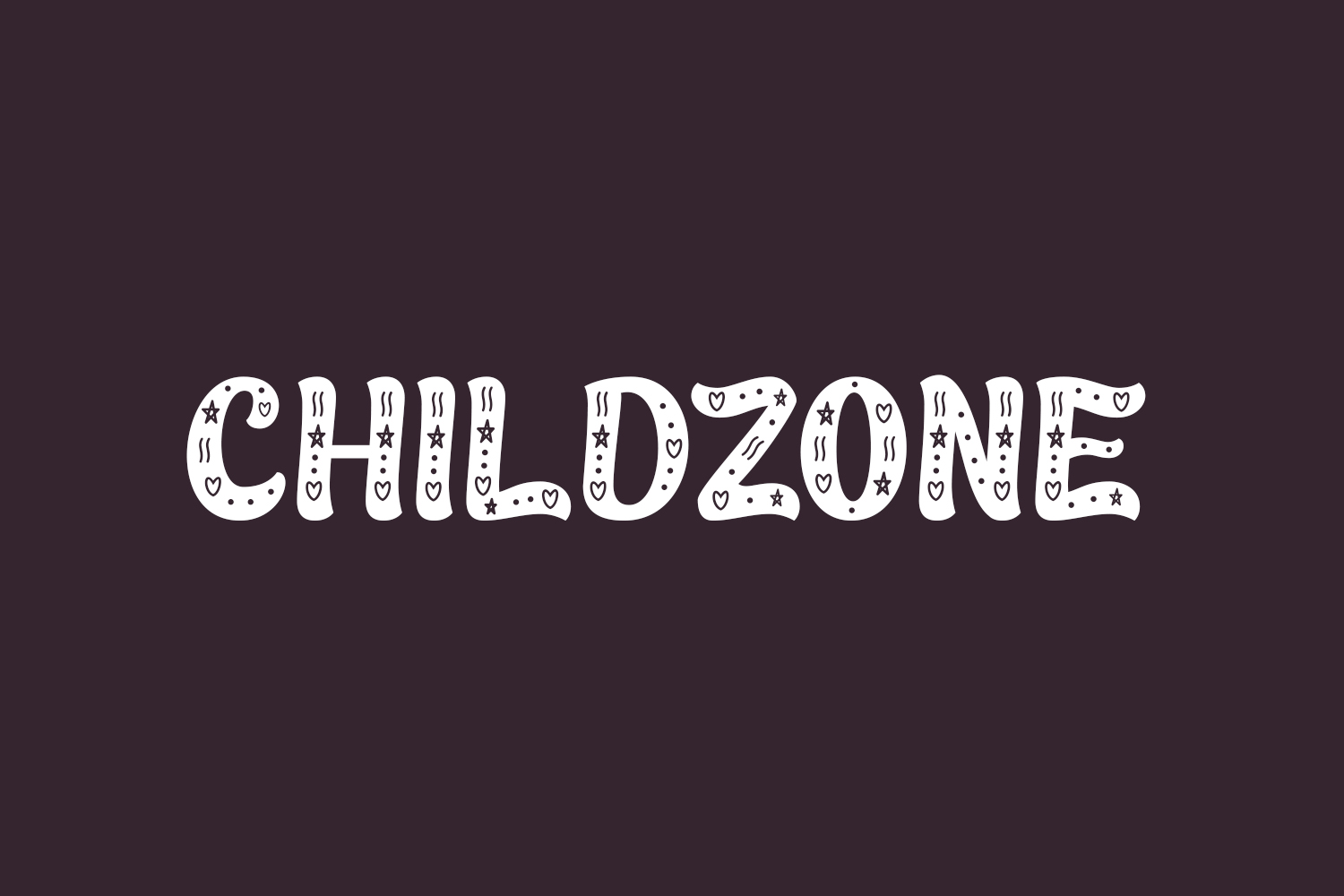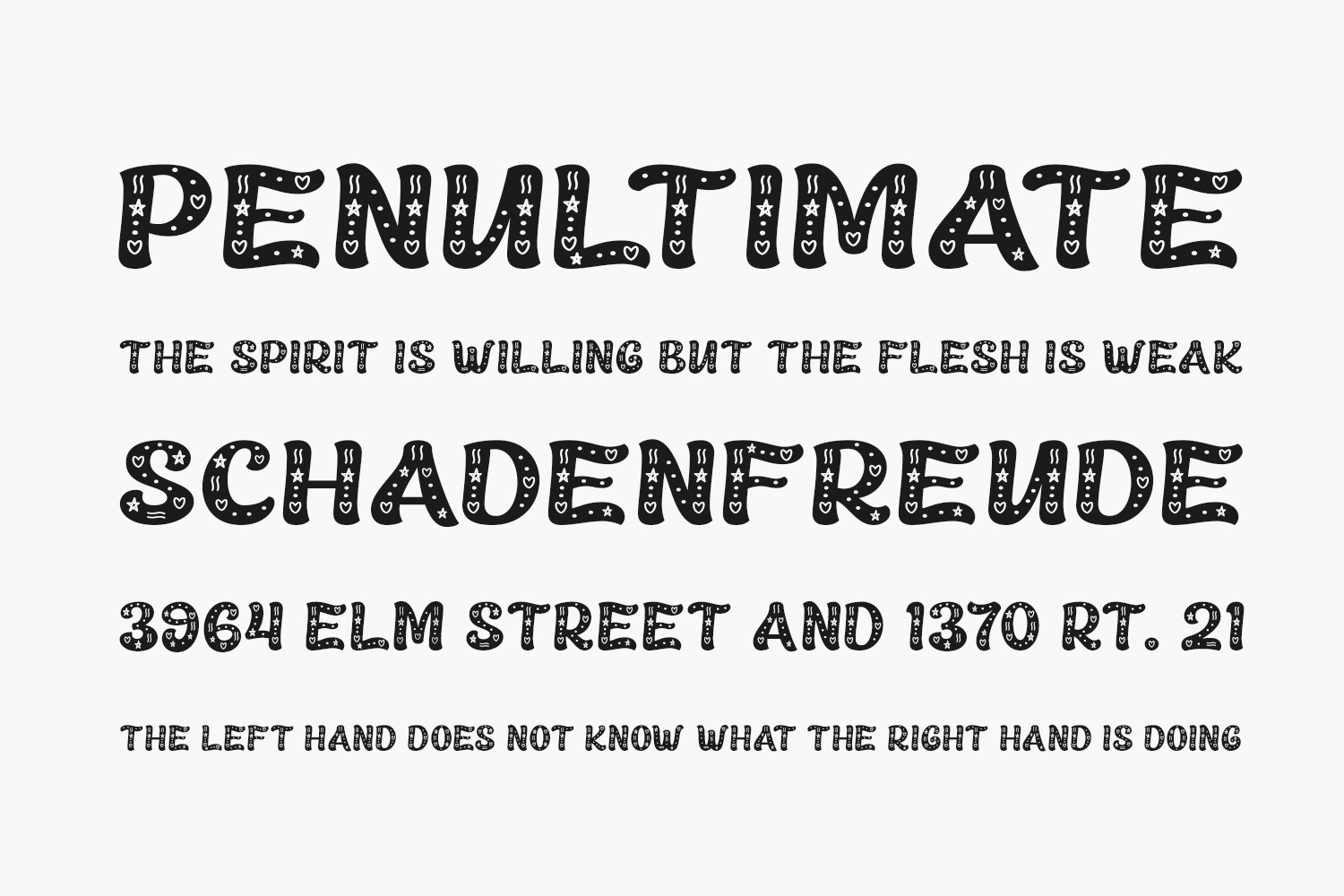
Embrace the playful vibes of Childzone Free Font, a trendy and enjoyable decorative font. Watch as it enhances various crafting projects, including cards, branding, labels, and more. Infuse confidence into your favorite creations and be prepared to be amazed by the exceptional results it produces. Download the font for free if you need it for personal use or purchase the full version for commercial use.